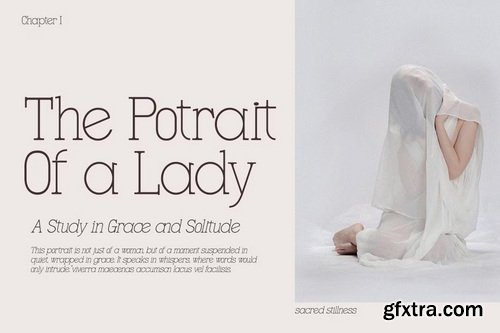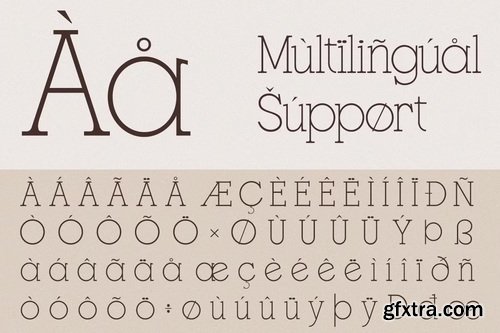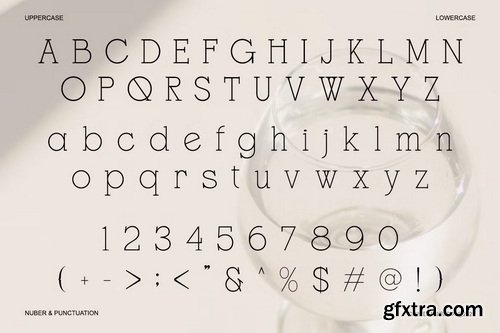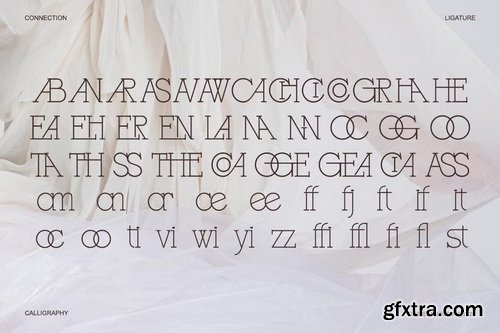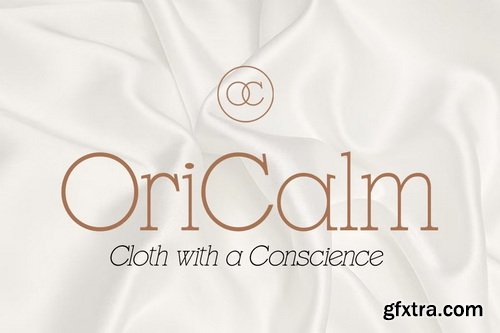
CreativeMarket - Gracessencia Modern Elegant Luxury
- Designed for high-end branding, fashion editorials, wedding stationery, and premium packaging, this typeface exudes grace, style, and modern harmony. With its sleek ligatures, stylistic alternates, and multilingual support, Gracessencia is the perfect choice for creatives seeking a font that elevates their design into a world of beauty and prestige.